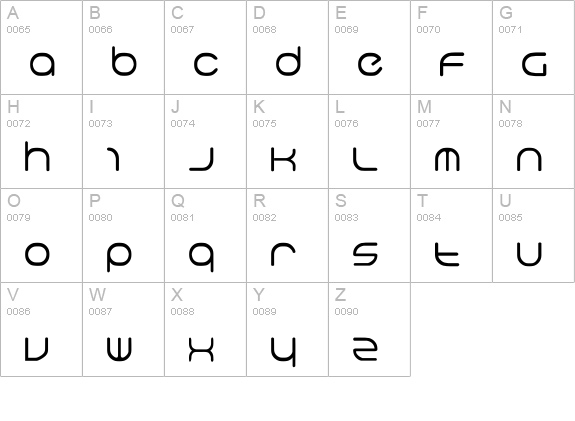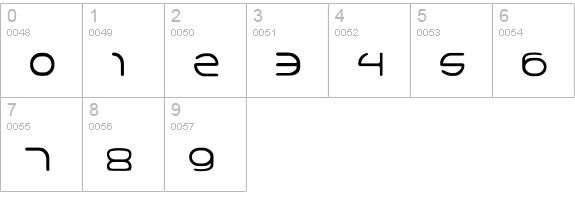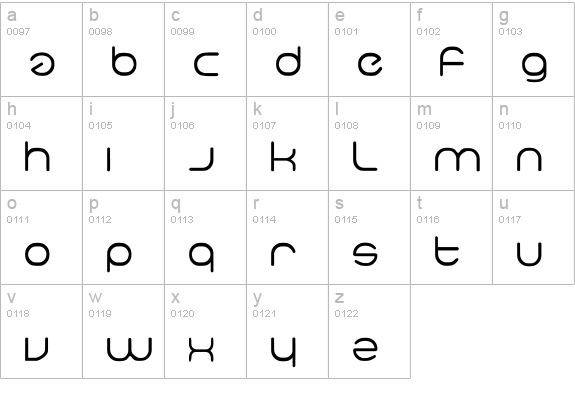
neo-geo Font Details
The Neo-Geo font is a sleek and modern typeface that exudes a sense of sophistication and elegance. Its crisp lines and sharp edges make it perfect for a wide range of design projects, from branding to print materials. With its clean and structured look, the Neo-Geo font is sure to make a bold statement and capture attention. Best of all, the Neo-Geo font is available for free download at FontsMarket.com. This means that you can easily access this stylish typeface without having to spend a dime. Whether you're a graphic designer looking for a fresh new font to add to your collection or a business owner in need of a professional and eye-catching font for your marketing materials, the Neo-Geo font is the perfect choice. Download it today and elevate your designs with this versatile and modern typeface.